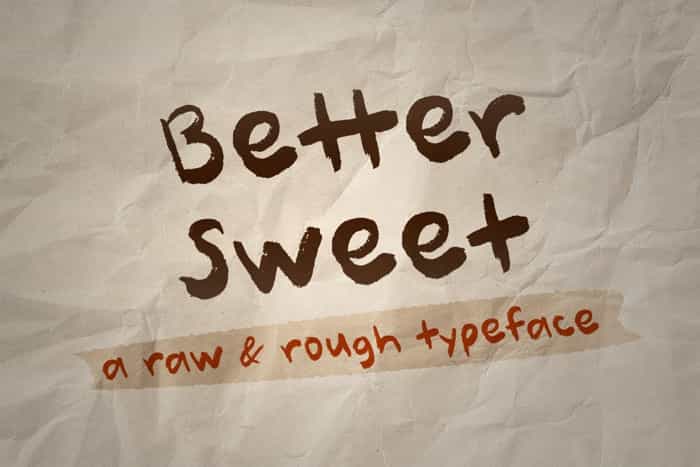
Discover Better Sweet Script Font, part of the Brush collection—a versatile and unique font perfect for adding a personal touch to your projects. Download it for free and enjoy crafting designs with style, from invitations to social media posts. This font is available exclusively for personal use, giving you the freedom to create without limits. Unlock your creativity with Better Sweet Script Font today!
The Betrer Sweet Font is an urban vintage and a natural handprinted font. It can be used for any design needs like branding, urban design, modern advertising design, Art Quote, Book/Cover Title, special events and many more.